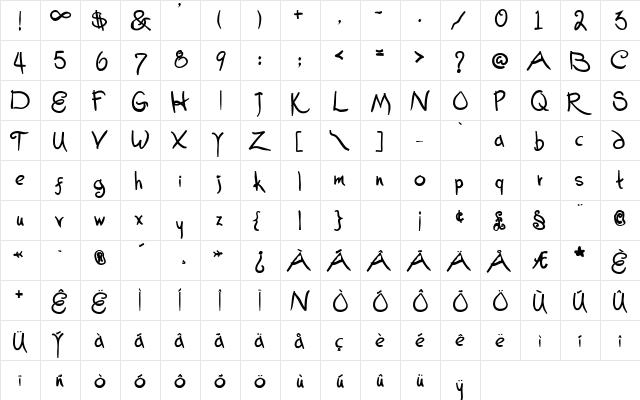
Christmas GiftScriptBoldA Font Preview
Christmas GiftScriptBoldA
Christmas GiftScriptBoldA Font Details
Design Context for Christmas Typeface
Christmas flows with the natural rhythm of handwritten lettering, making it ideal for designs that call for warmth and personal expression. The heavy weight commands attention and anchors typographic hierarchies.
Font Pairing: Combine Christmas with a simple geometric sans for maximum contrast — the tension between flowing curves and clean structure is a classic typographic pairing.
Pro Tip: Use Christmas for short runs of text — names, titles, or taglines. Extended body copy in script faces tires the eye quickly.